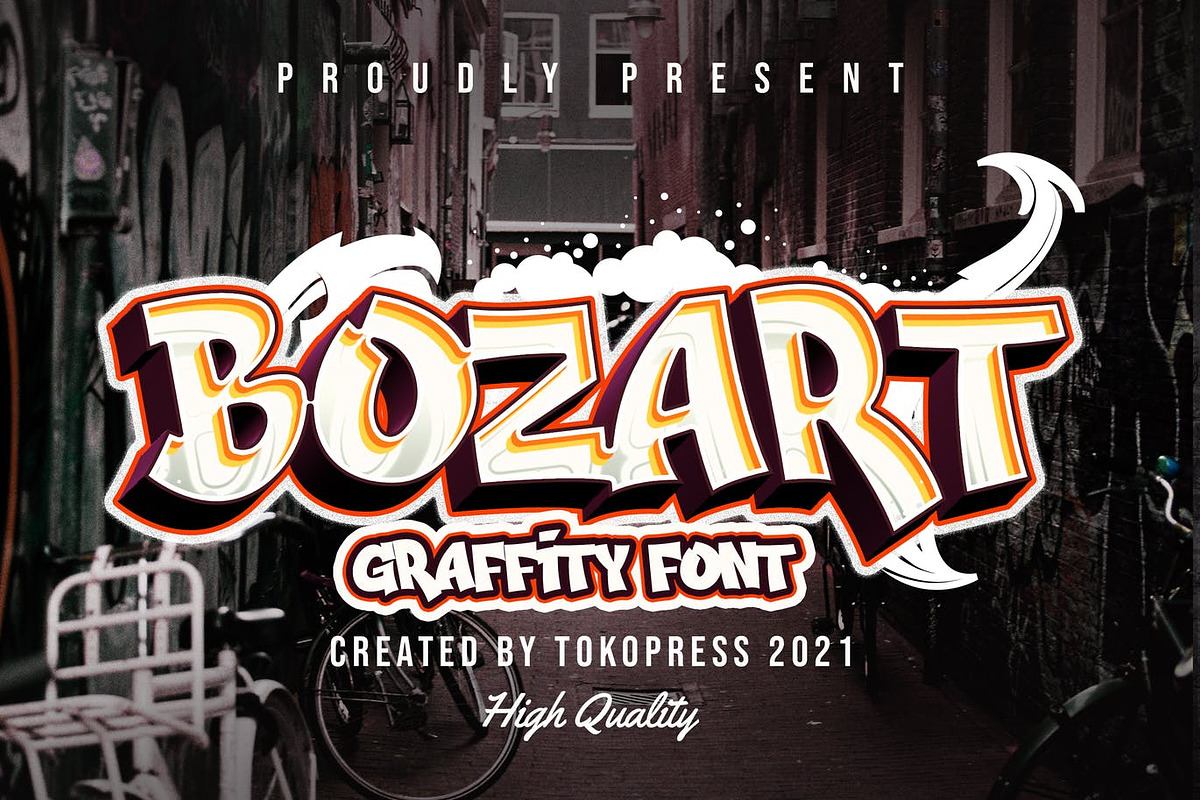
BOZART Graffiti Font Free Download is a bold and edgy typeface that captures the raw energy and urban flair of street art. With its dynamic strokes, spray-paint textures, and rebellious attitude, this font is perfect for posters, music covers, event flyers, streetwear branding, and youth-focused designs.
Whether you're creating hip-hop visuals or skate culture graphics, BOZART delivers that authentic graffiti vibe. Its expressive letterforms make a strong visual statement, adding movement and personality to any layout.
Designed for impact, this font stands out in both print and digital formats, ensuring your message doesn't go unnoticed. It’s a must-have for creatives who want to push boundaries and bring street culture into their designs.